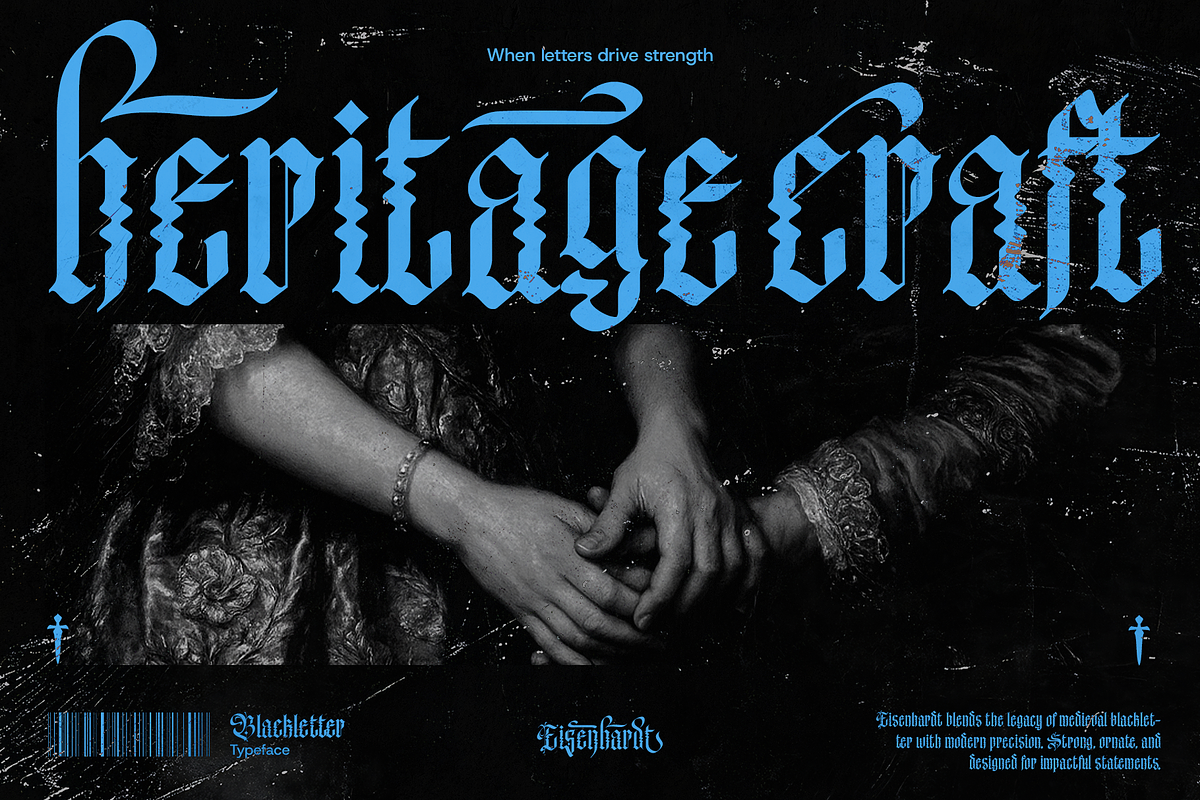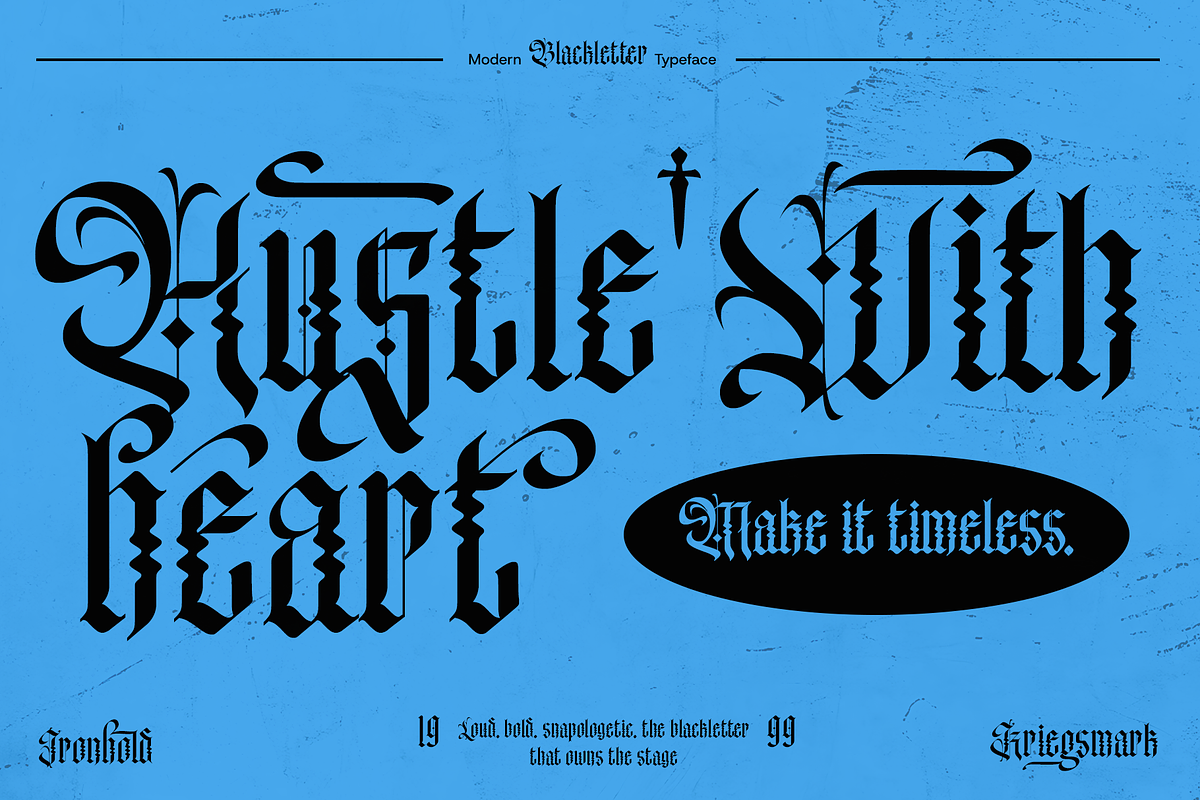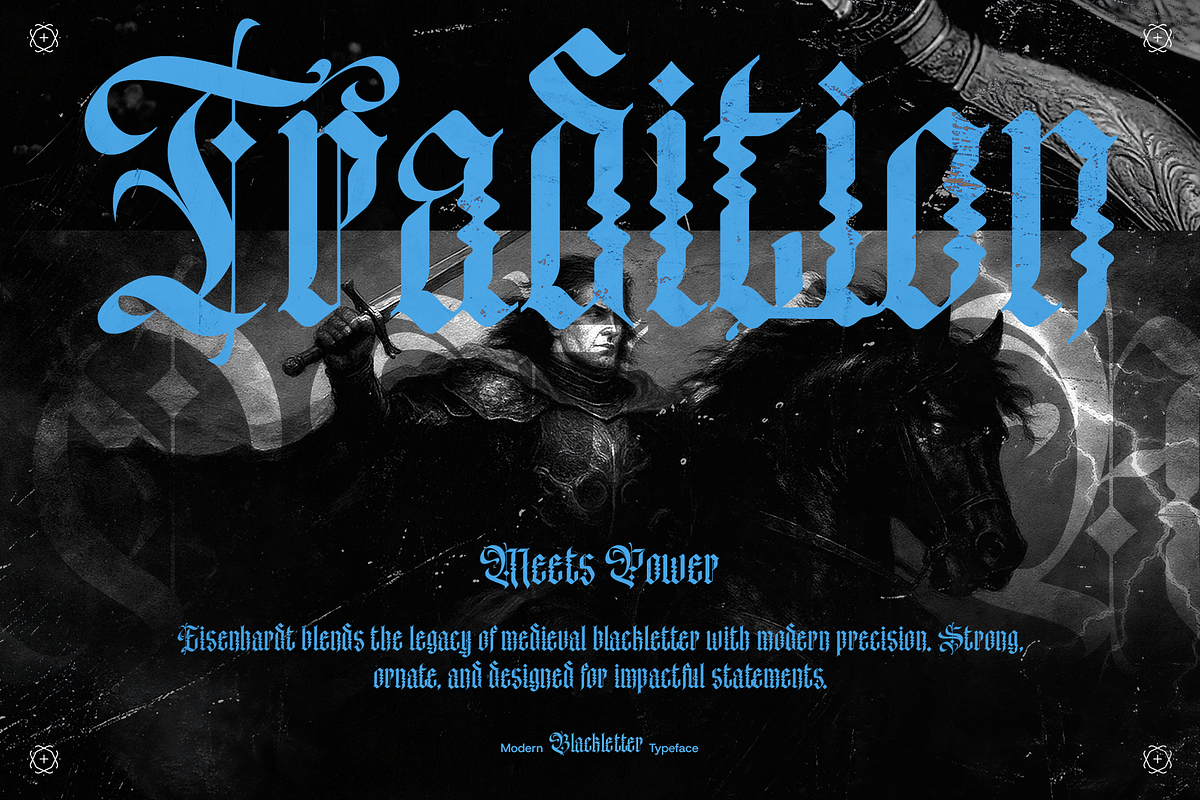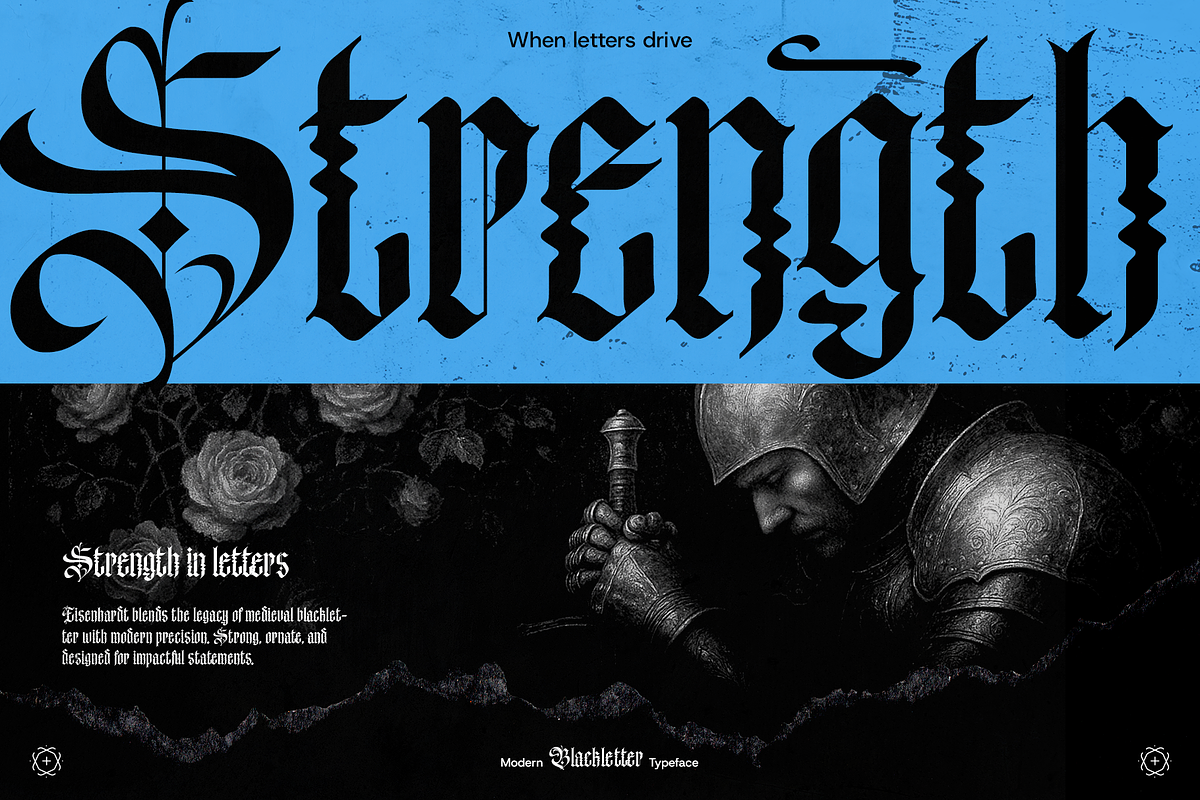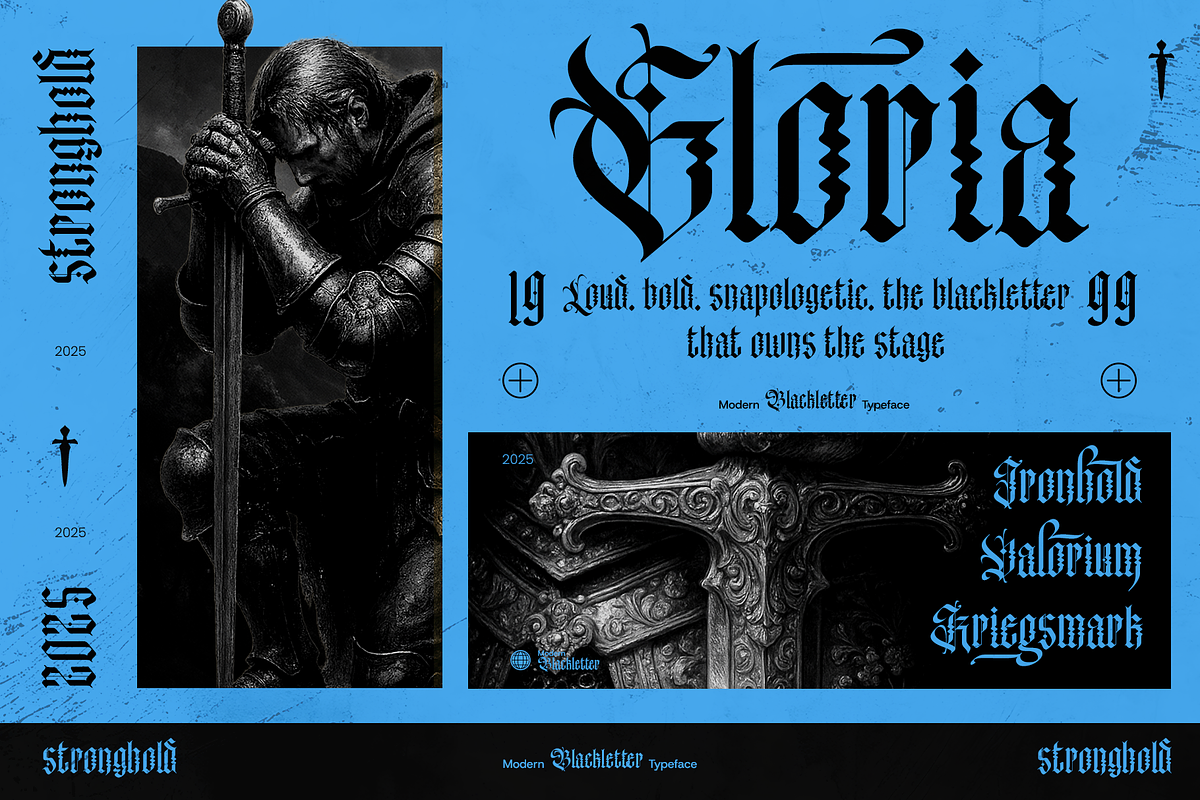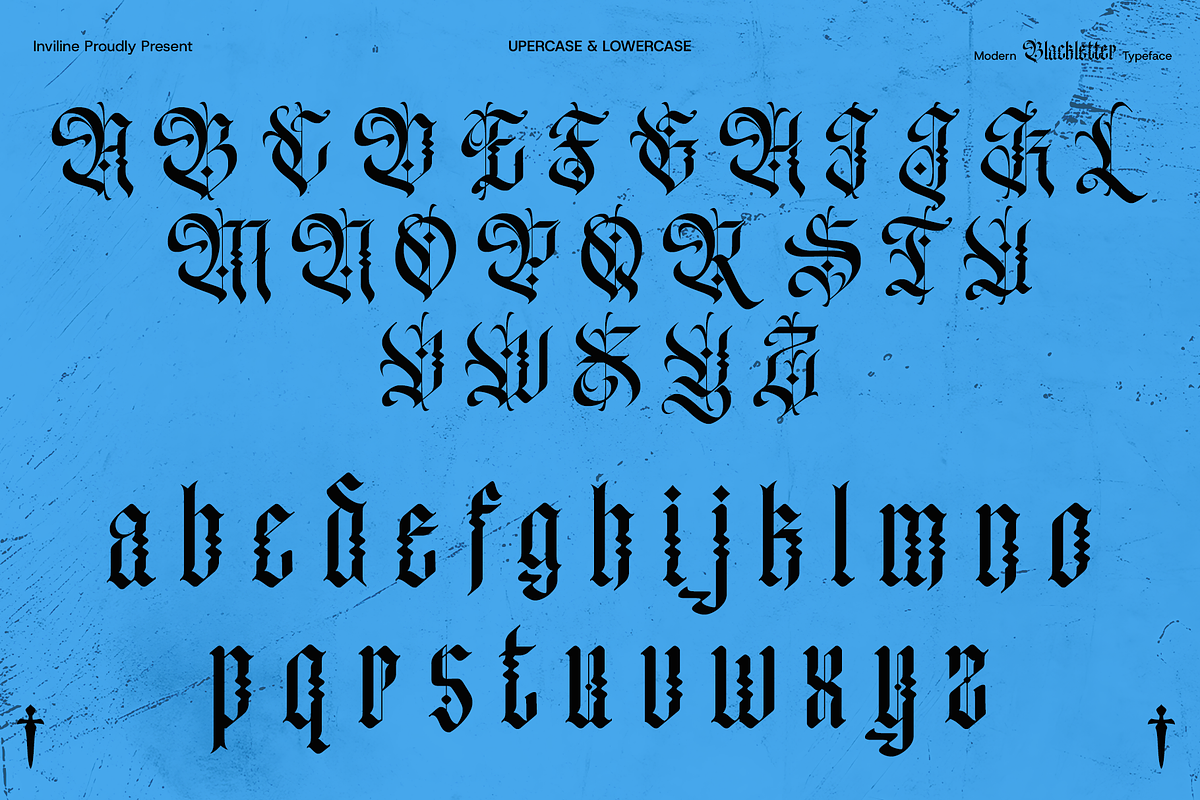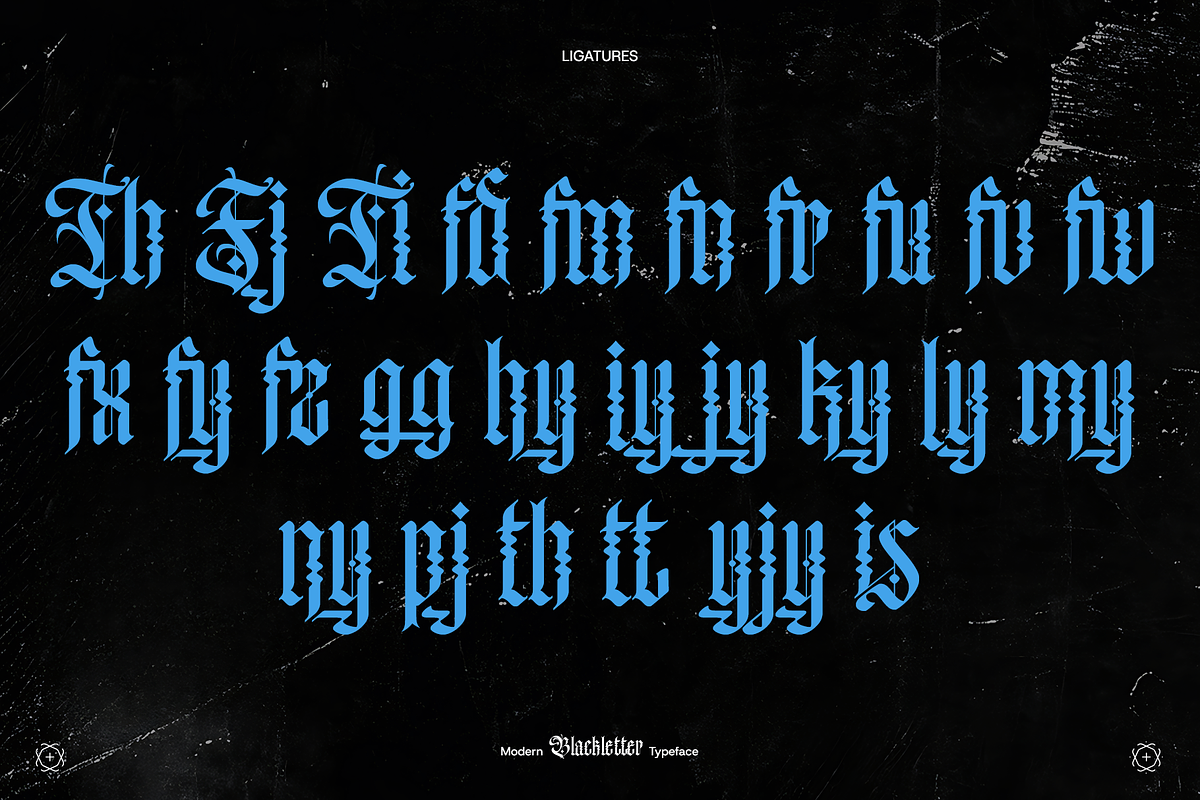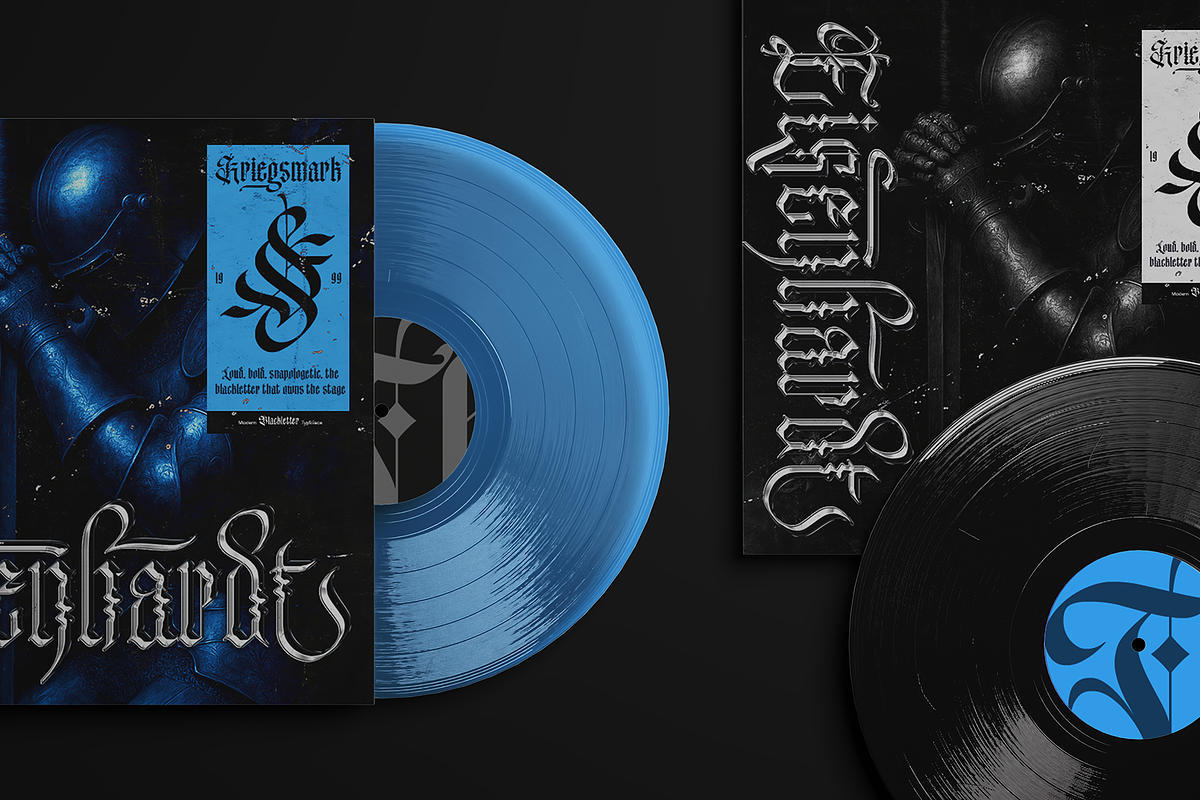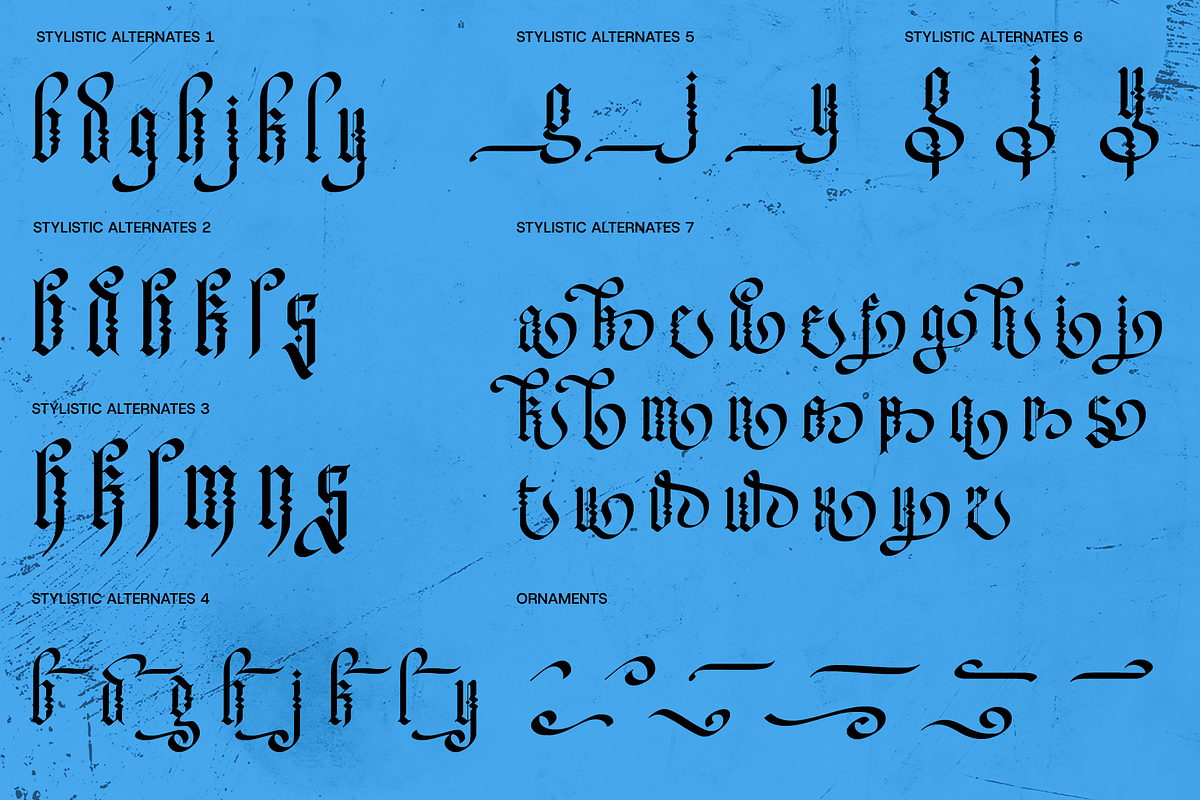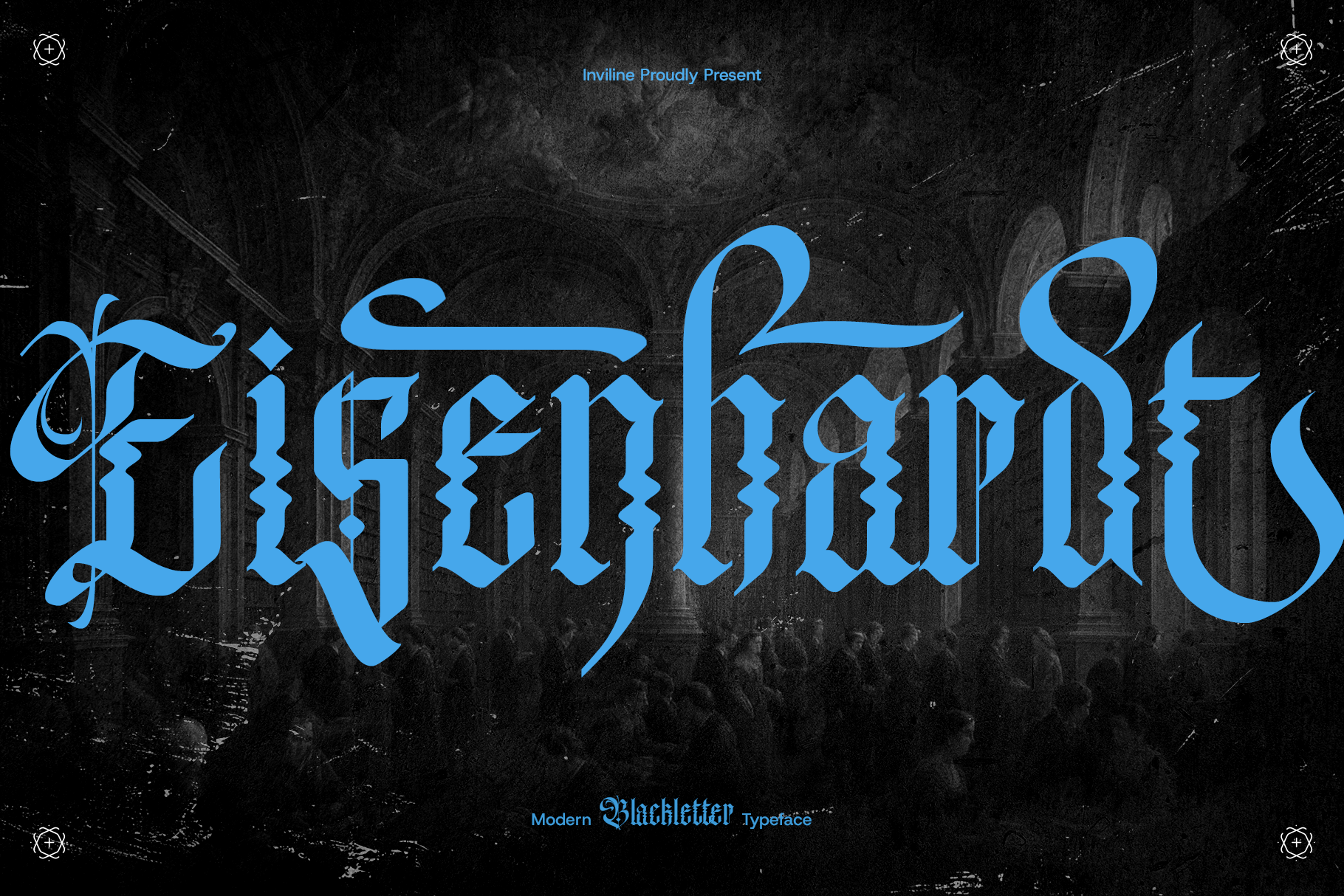
Eisenhardt - Gothic Blackletter Font
Eisenhardt is a modern blackletter display typeface inspired by medieval lettering, gothic architecture, metal music culture, historical manuscripts, and contemporary underground design.
Its sharp terminals, dramatic capital letters, angular construction, and ornamental details create a powerful visual identity that feels dark, authoritative, and refined. Eisenhardt preserves the character of traditional blackletter while introducing a cleaner structure suitable for modern creative projects.
Eisenhardt combines classical gothic letterforms with contemporary display typography. The font features strong vertical strokes, pointed details, sweeping decorative shapes, and tightly structured characters that create an intense and memorable appearance.
Designed primarily for headlines, logos, titles, and short statements, Eisenhardt works especially well in large-scale compositions. Its distinctive forms can become the central visual element in music artwork, posters, fashion campaigns, packaging, book covers, and dark branding systems.
Pair it with distressed textures, monochrome photography, metallic details, deep colors, or minimalist layouts to create either an authentic medieval atmosphere or a contemporary gothic identity.
Eisenhardt modern blackletter font
Uppercase characters A–Z
Lowercase characters a–z
Numerals 0–9
Standard symbols and punctuation
Accented Latin characters
Modern blackletter display style
Gothic and medieval-inspired construction
Sharp terminals and angular details
Decorative uppercase letterforms
Strong vertical strokes
Dramatic and authoritative personality
Complete numerals
Standard symbols and punctuation
Suitable for print and digital projects
Strong visual impact at medium and large sizes
Ideal for logos, titles, headlines, and short phrases
Works well with dark, metallic, grunge, and minimal visual styles
Easy to pair with condensed sans serif or classic serif fonts
Ideal For / Use Cases
Gothic logo design
Metal band identities
Album cover artwork
Music festival posters
Medieval-inspired branding
Dark fashion campaigns
Streetwear branding
Tattoo studio identities
Motorcycle club logos
Gaming titles
Fantasy book covers
Horror posters
Film titles
Editorial headlines
Magazine covers
Packaging design
Beverage labels
Merchandise graphics
T-shirt designs
Event posters
Nightclub branding
Dark luxury identities
Historical projects
Exhibition graphics
Decorative signage
Use the font at medium or large sizes to preserve its sharp terminals and detailed blackletter construction. It is most effective for logos, headlines, names, titles, and short statements rather than long paragraphs.
Pair Eisenhardt with a simple sans serif or readable serif font for descriptions, dates, captions, and supporting information. Black, white, silver, dark blue, red, and metallic accents can strengthen its gothic visual character.